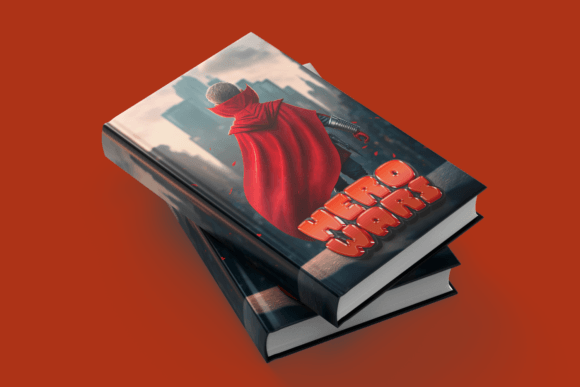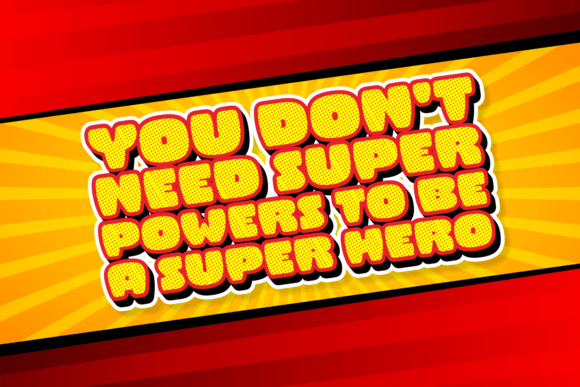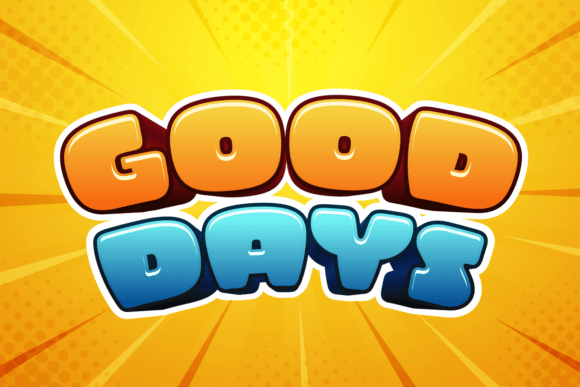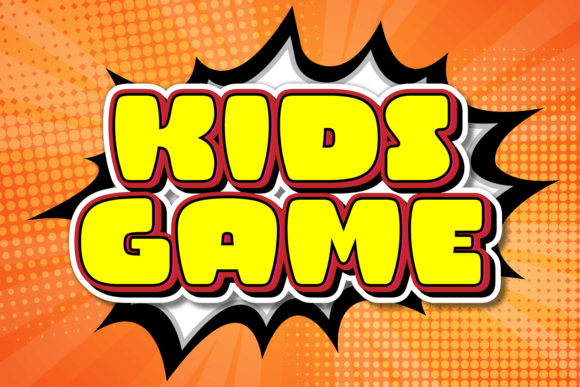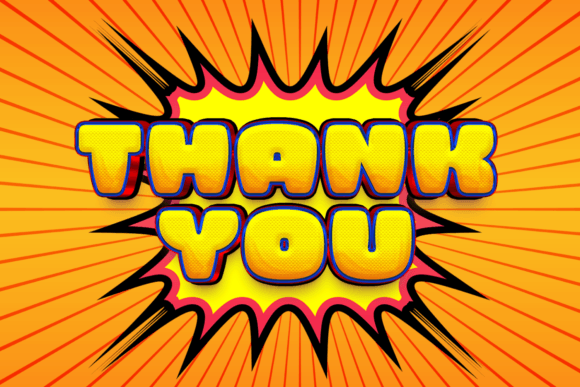
Bang Hero Font: The Ultimate Comic-Style Display Font for Designers
Are you tired of using the same old fonts for your design projects? Look no further! Introducing Bang Hero, a fun comic-style display font that’s sure to add a playful touch to your typography. In this article, we’ll dive into the world of Bang Hero and explore its features, benefits, and uses.
What is Bang Hero Font?
Bang Hero is a comic-style display font that’s designed to be playful and chunky. It’s the perfect choice for designers who want to create outstanding typography that will impress everyone who sees it. With its bold and eye-catching design, Bang Hero is sure to make your text stand out from the crowd.
Key Features of Bang Hero Font
- Playful and Chunky Design: Bang Hero has a fun and playful design that’s perfect for creating eye-catching typography.
- Comic-Style: This font has a classic comic-style look that’s sure to bring a smile to your audience’s faces.
- Display Font: Bang Hero is designed to be used as a display font, making it perfect for headlines, titles, and other prominent text.
- Easy to Read: Despite its bold and chunky design, Bang Hero is easy to read, even at smaller sizes.
Benefits of Using Bang Hero Font
So why should you use Bang Hero for your design projects? Here are just a few benefits:
- Adds a Playful Touch: Bang Hero adds a playful touch to your typography, making it perfect for designs that need a bit of personality.
- Grabs Attention: The bold and eye-catching design of Bang Hero is sure to grab attention and draw your audience in.
- Versatile: Bang Hero can be used for a wide range of design projects, from posters and flyers to social media graphics and website headers.
Use Cases for Bang Hero Font
So what can you use Bang Hero for? Here are a few ideas to get you started:
- Posters and Flyers: Use Bang Hero to create eye-catching posters and flyers that will grab attention and get your message across.
- Social Media Graphics: Bang Hero is perfect for social media graphics, including Facebook posts, Twitter headers, and Instagram stories.
- Website Headers: Add a playful touch to your website headers with Bang Hero, making your website stand out from the crowd.
- Comic Books and Cartoons: Bang Hero is a natural fit for comic books and cartoons, adding a classic comic-style look to your typography.
Tips for Using Bang Hero Font
Here are a few tips for getting the most out of Bang Hero:
- Use it Sparingly: Bang Hero is a bold and eye-catching font, so use it sparingly to avoid overwhelming your audience.
- Pair it with Other Fonts: Bang Hero pairs well with other fonts, so don’t be afraid to experiment with different combinations.
- Experiment with Colors: Bang Hero looks great in a wide range of colors, so experiment with different colors to find the one that works best for your design.
In conclusion, Bang Hero is a fun and playful comic-style display font that’s perfect for designers who want to add a bit of personality to their typography. With its bold and eye-catching design, Bang Hero is sure to grab attention and make your text stand out from the crowd. Whether you’re creating posters and flyers, social media graphics, or website headers, Bang Hero is a great choice. So why not give it a try and see the difference it can make in your design projects?